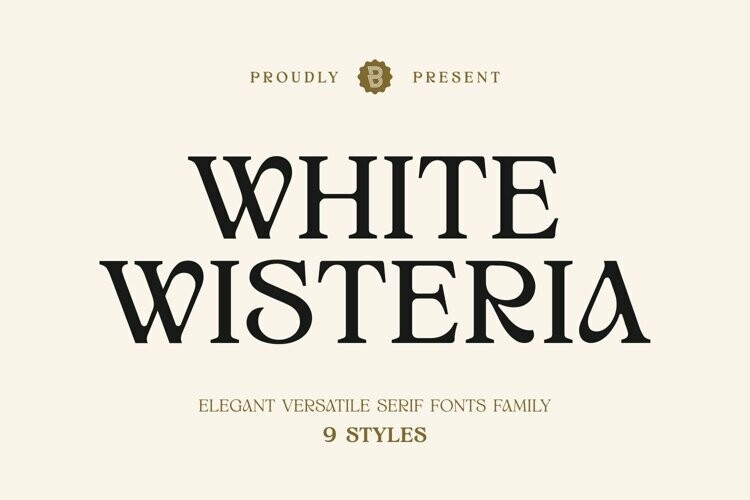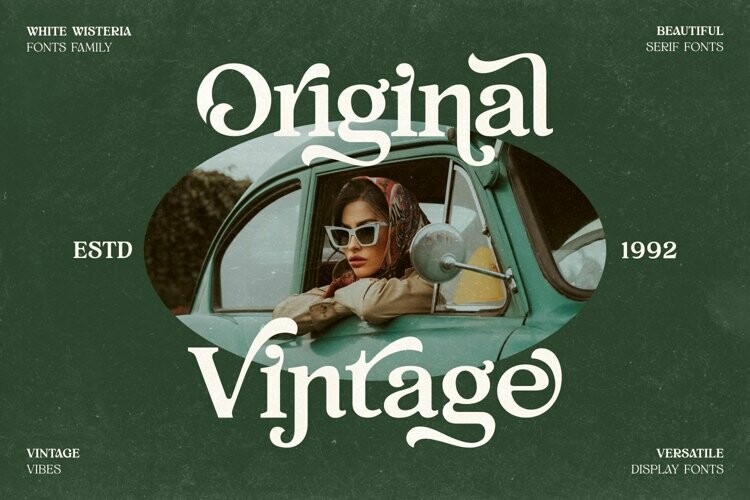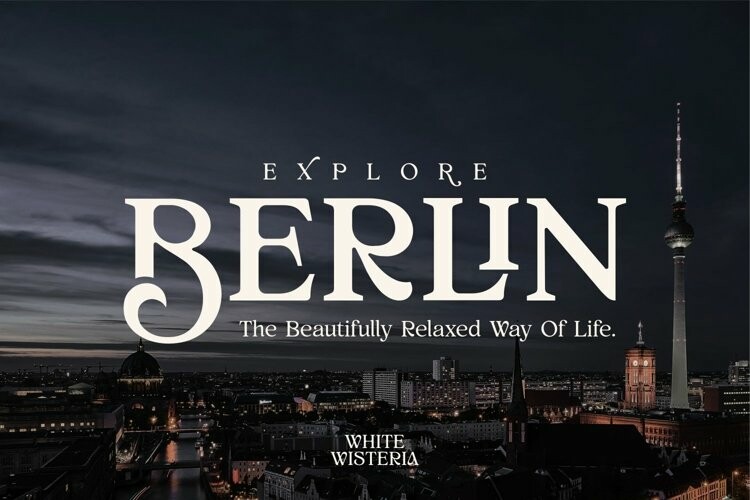
White Wisteria Font
White Wisteria Font – Elegant Versatile Serif Fonts Family, is an elegant versatile serif font family consisting of 9 styles. This font has natural curved proportions and has soft corners. You can use this font in vintage, classic and retro designs. This font gives a beautiful, classy and luxurious impression to your design. This font is perfect for a variety of projects such as logos, branding, fashion, magazines, labels, posters, album covers and many more.